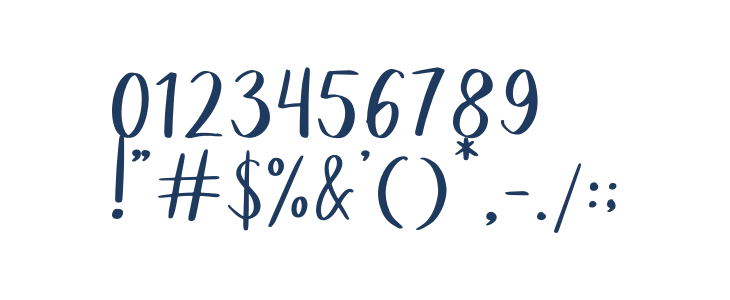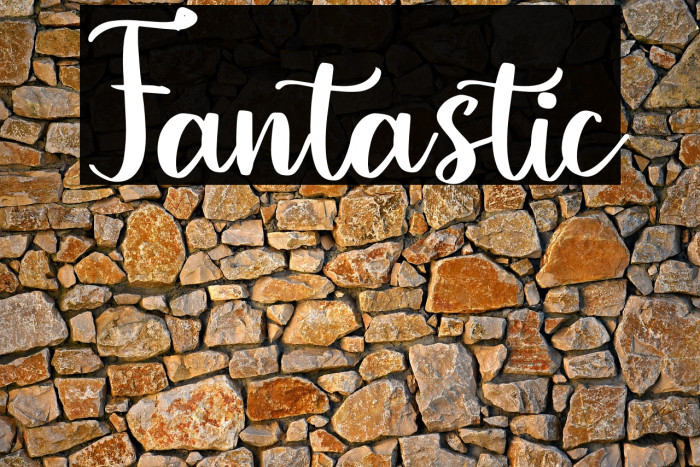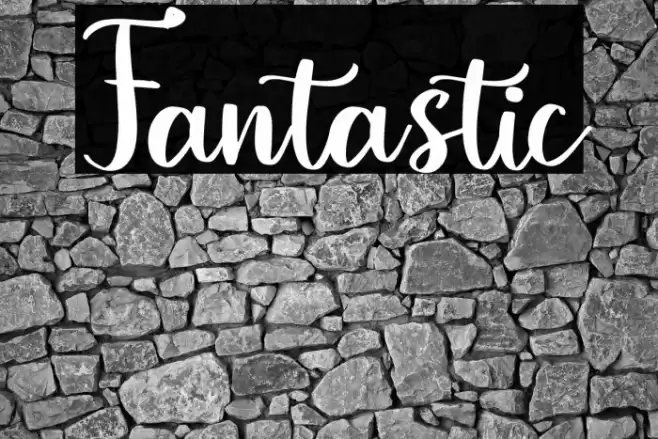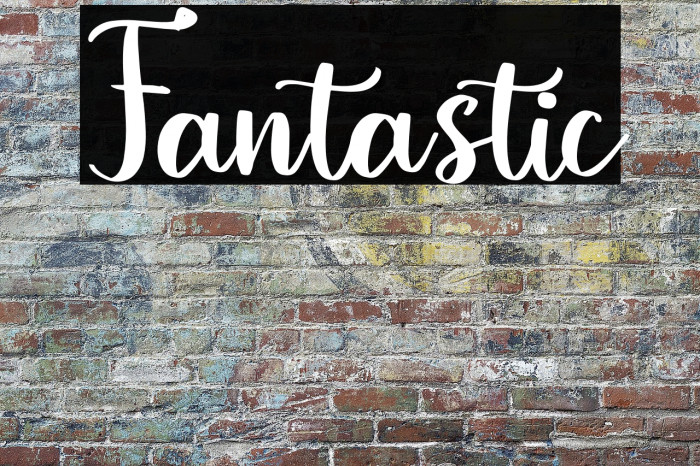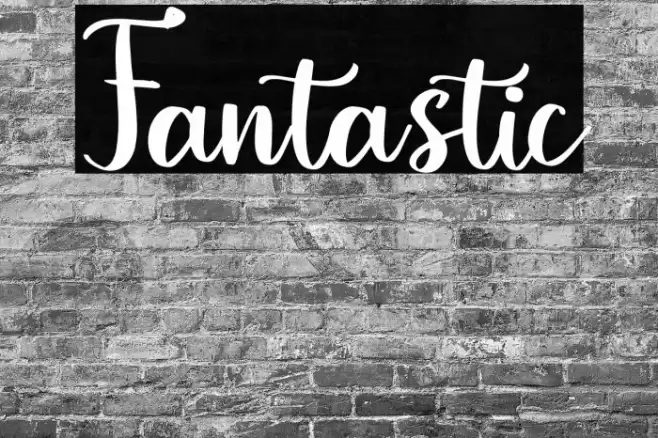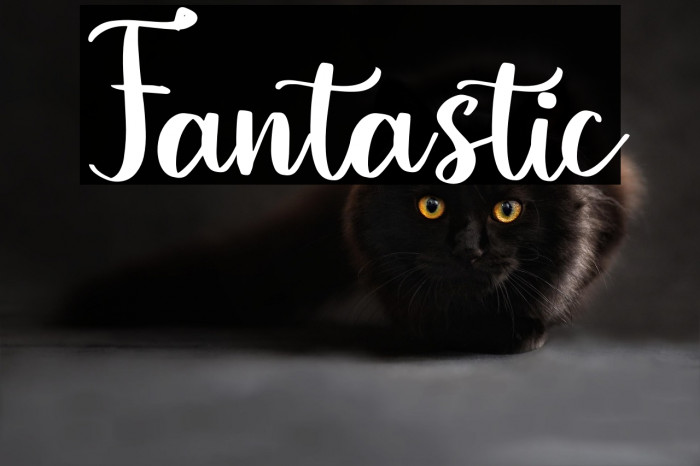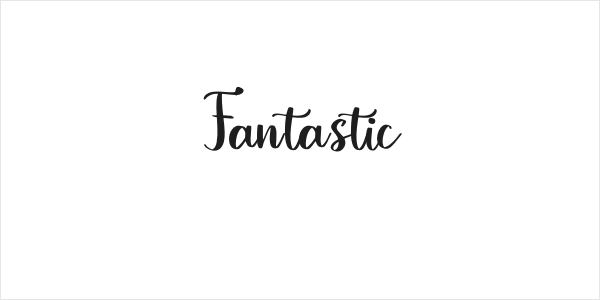
Fantastic Font
Fantastic Description
This font features a lively and playful script style with a handwritten appearance. The letters are connected, giving it a flowing and dynamic look. The uppercase letters are bold and expressive, while the lowercase letters maintain a consistent rhythm with elegant loops and curves. The numerals are slightly slanted, adding to the overall whimsical feel. Special characters are creatively designed, maintaining the font's cohesive style. This font exudes a sense of fun and creativity, making it suitable for projects that require a personal touch.
| Proposed Projects | Ideal for greeting cards, invitations, personal branding, and creative projects that require a whimsical touch. |